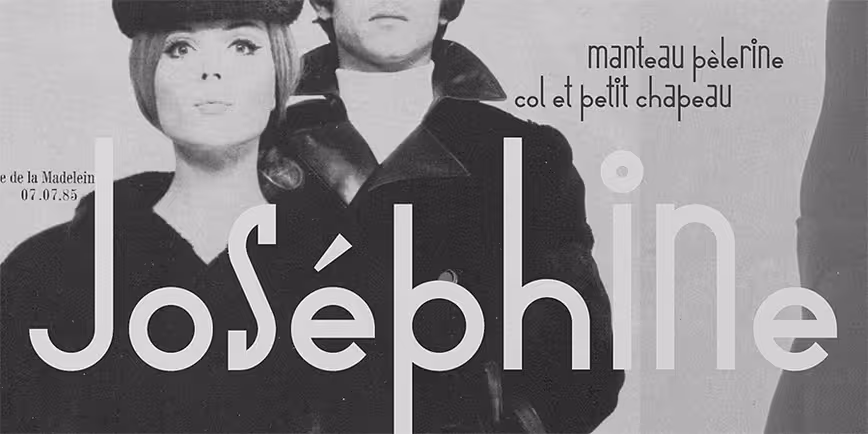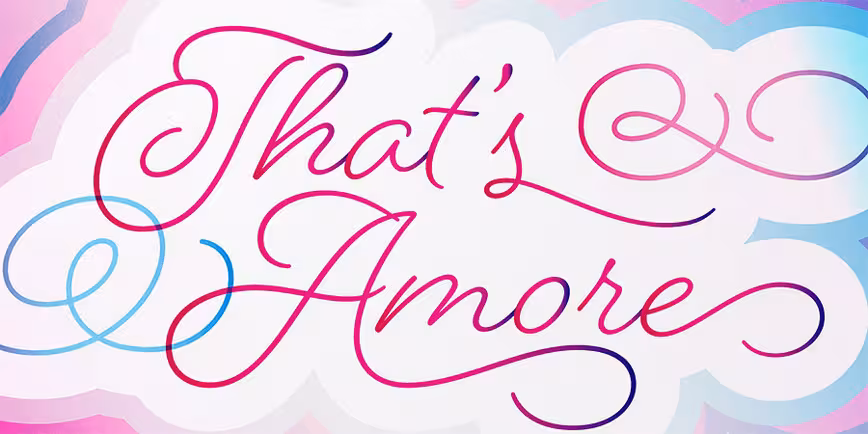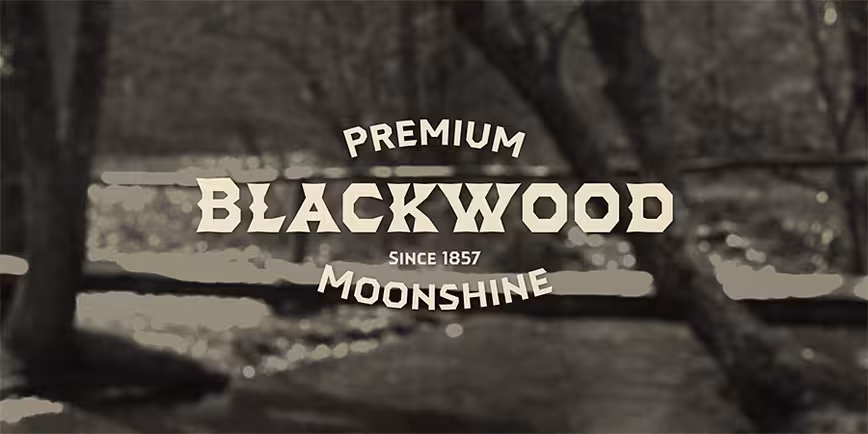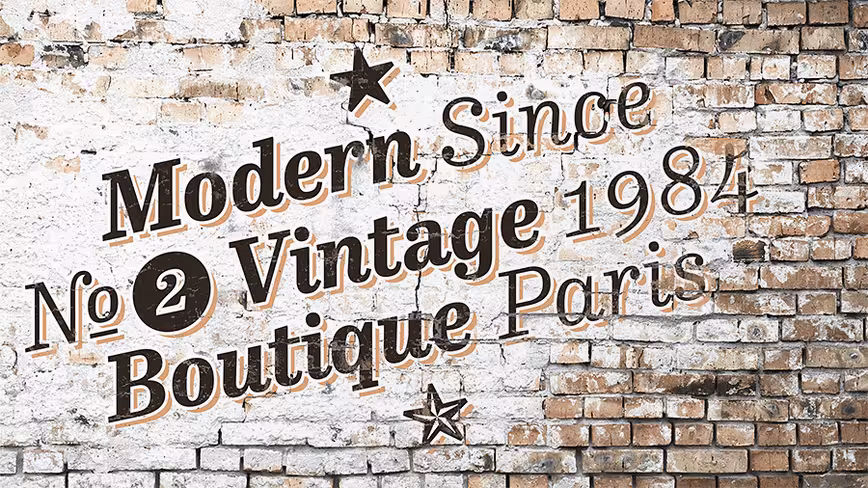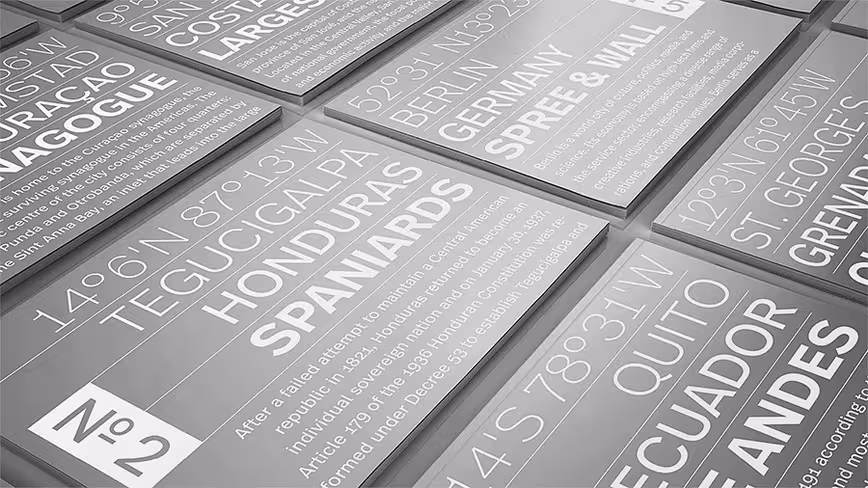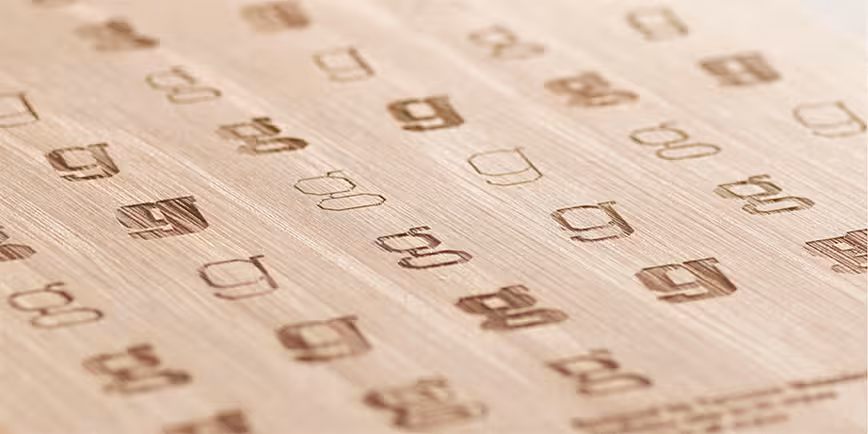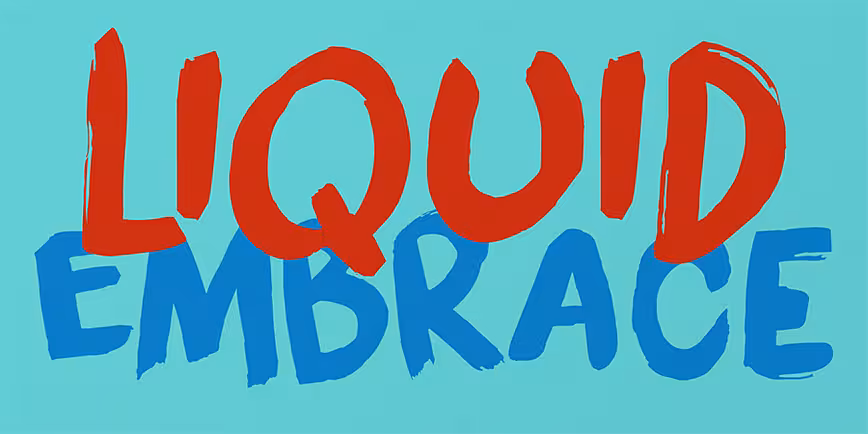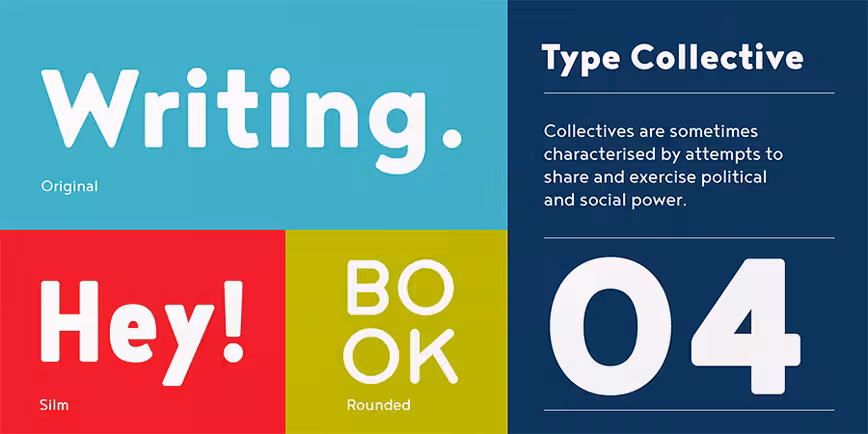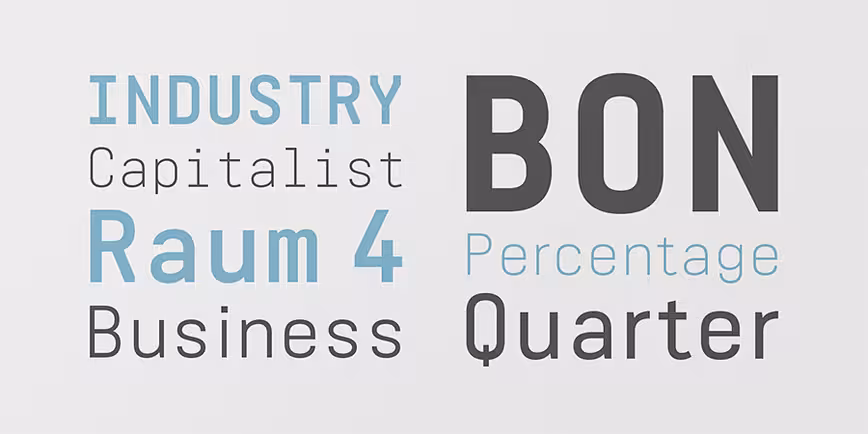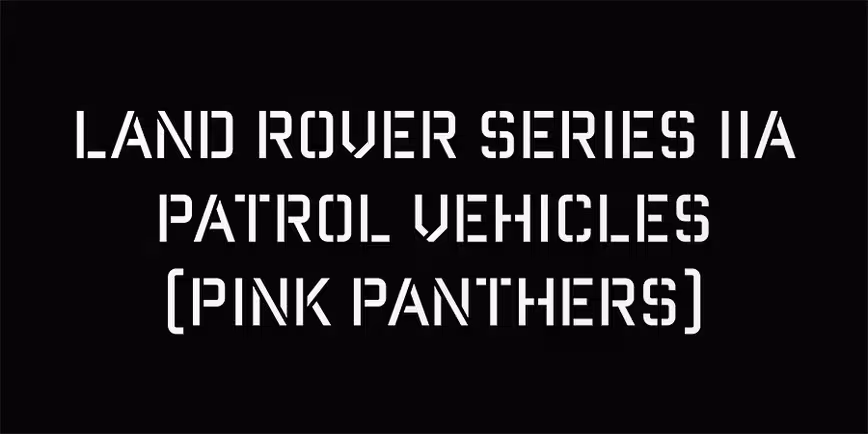
21 of our favorite typefaces from August 2015
We took a small hiatus for the past couple of months, but now we’re back with more favorite fonts for all your typographic needs. Have a look below:
Oh No Type Co: Hobeaux
For the designer seeking a high performance type family.
Monotype: Kairos
Kairos successfully melds design distinction and ease of use.
Typesketchbook: Noyh
Noyh has a geometric structure with smooth corners – clean and friendly.
FontFont: FF Real
Rooted in early static grotesques from the turn of the century.
FontFont: FF Hertz
One of the very rare uni-width typefaces, which means each letter occupies the same space in all weights.
Sudtipos: Salamat
Salamat is an elegant and sophisticated brush script.
Laura Worthington: Beloved
Beloved – the hand of a romantic spirit, rendered in ballpoint.
Oh No Type Co: Viktor Script
A good companion for any well-deserving designer.
Fenotype: Vanilla Shot
Vanilla Shot is a smooth script family with two weights and an ornament set.
Insigne: Dever
The flair of the Wild West melded with a shout out to the sign painters and package lettering artists of the 1800s.
Commercial Type: Sanomat Sans
A geometric sans serif with both display and text variants.
Indian Type Foundry: Tarsus
Tarsus is a sturdy serif typeface optimized for text.
Reserves: Reload Alt Stencil
A rounded industrial geometric stencil typeface.
Gestalten: Pulitzer
A contemporary slab serif inspired by the broad nib pen.
Hanoded: Liquid Embrace
Liquid Embrace is a rough ’n’ ready brush font.
Juliasys: Josef K
Combines a clear, self-confident stroke with the calligraphic features typical of Franz Kafka’s handwriting.
Typedifferent: BD Barbeaux
BD Barbeaux is a condensed typeface with the fashionable chic of the French art nouveau.
Juri Zaech: Realtime Text
Realtime Text is a technical yet friendly design with details that serve function and visual impact alike.
Badson: Ermine
Ermine is derived from one of the most illuminated eras in American History.